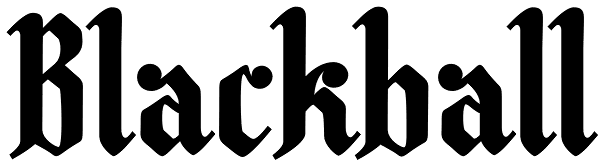
Blackball
Blackball is an attractive blackletter font with ball terminals. Yes, it did take a while to think up the name! This is a versatile font, at home equally on Christmas cards and gothic horror stories. There is some clever OpenType programming at its...